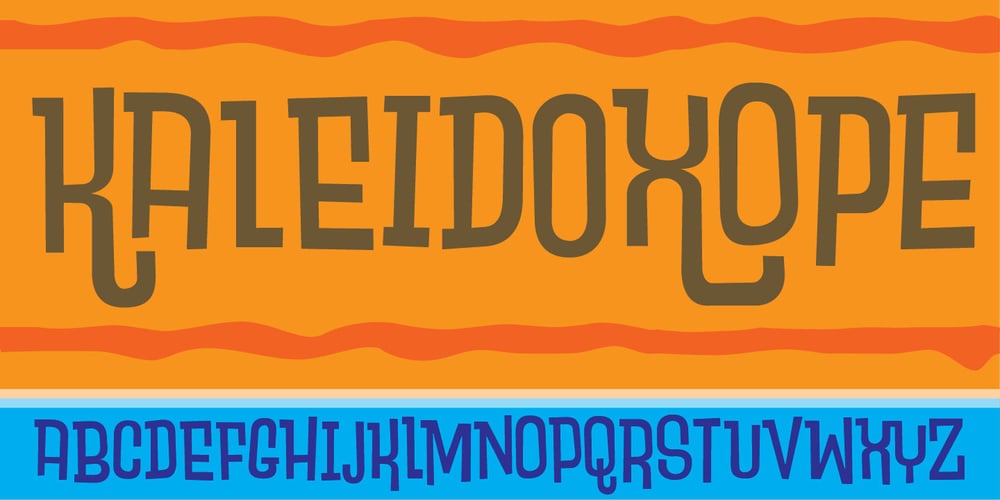
Kaleidoxope
Kaleidoxope font
Kaleidoxope Font Family was designed by Jakob Fischer and published by PizzaDude.dk. Kaleidoxope contains 1 styles and family package options. Kaleidoxope is my hand-drawn headline font. However, I traced the font digitally to make it look more smooth – but still kept the handmade look. As usual it has that well known pizzadude mixture of funk, grafitti and a teaspoon of madness! Comes with alternate characters for double lettering and a swashy version of most letters! Enjoy! 🙂